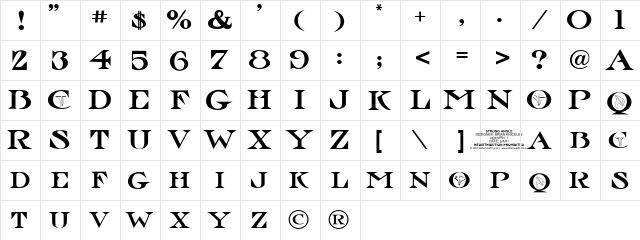
LHF Strong Angle Regular
Design Context for LHF Strong Angle Typeface
LHF Strong Angle is a composed and adaptable typeface that performs quietly and consistently across a wide range of design contexts.